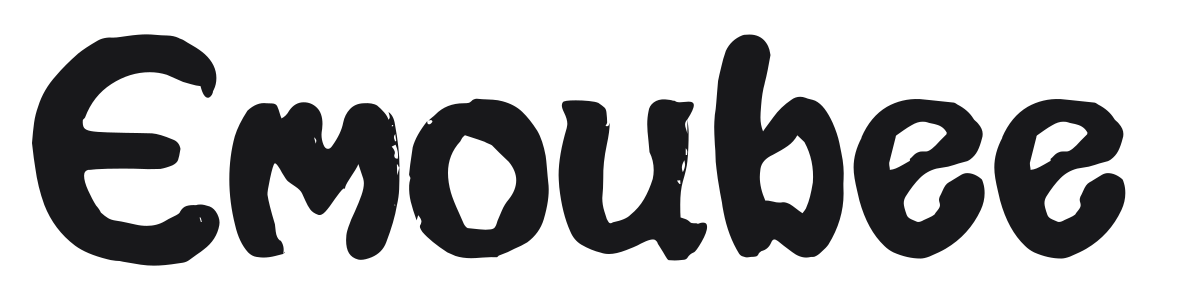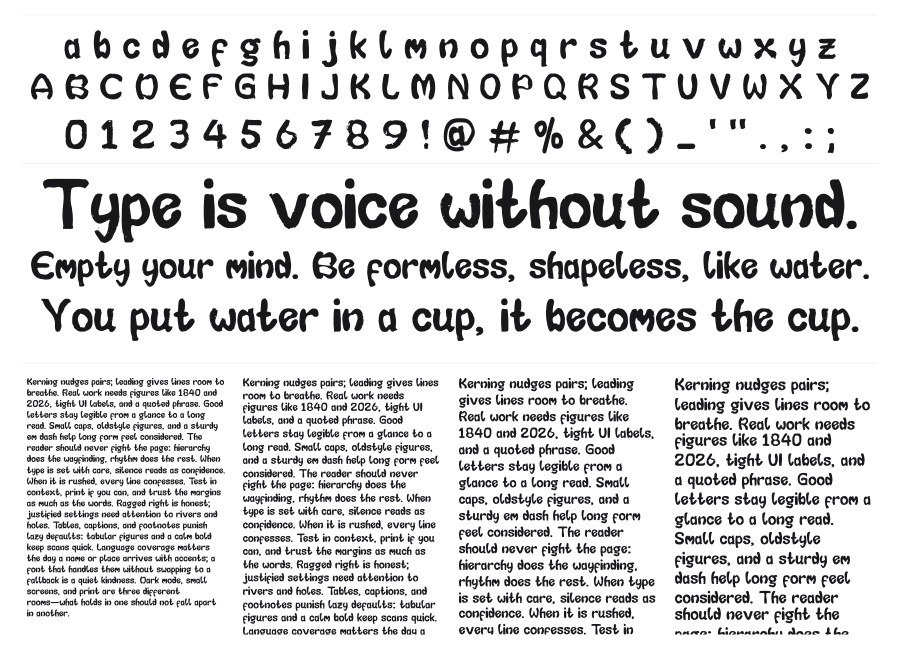
Emoubee
Emoubee is a bold, brush-painted script with chunky, irregular strokes and a lively hand-drawn texture. The characters have a wide, rounded presence that feels festive and approachable, somewhere between a casual brush pen and a kid's birthday banner. It carries genuine handcraft energy without tipping into grunge.